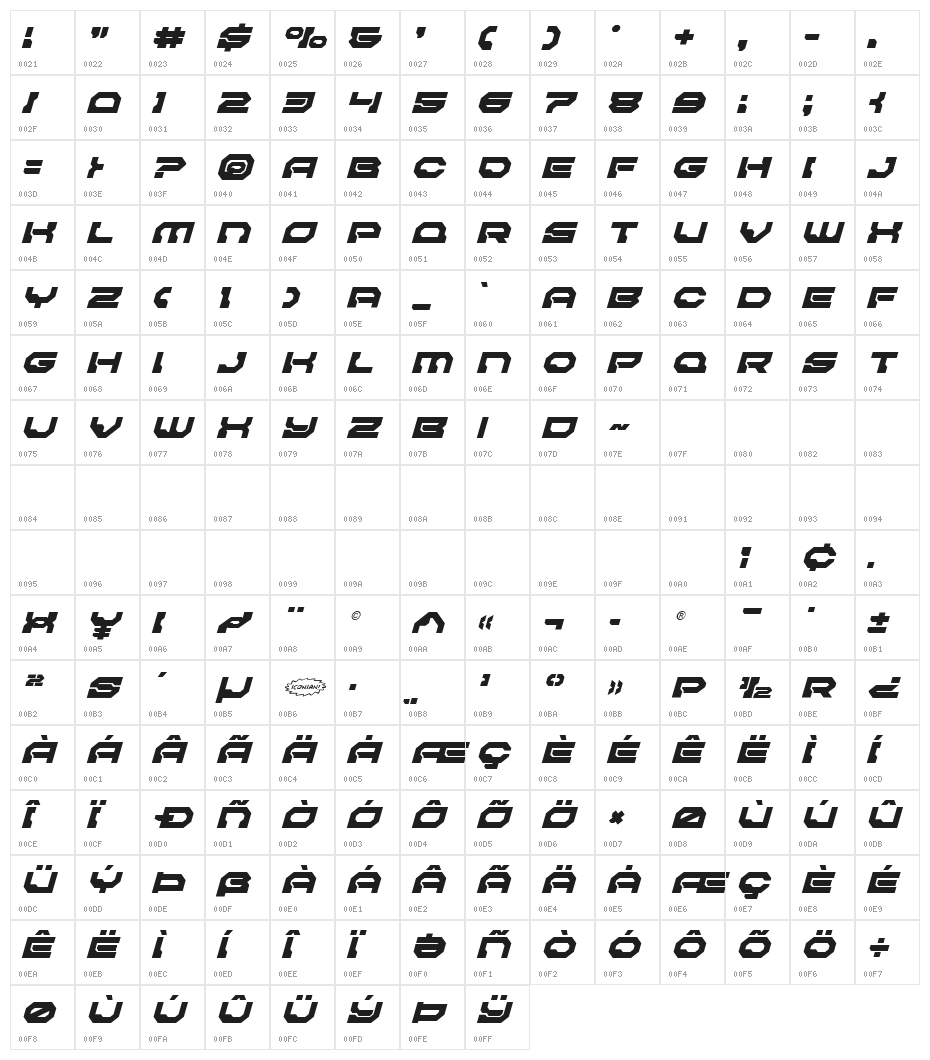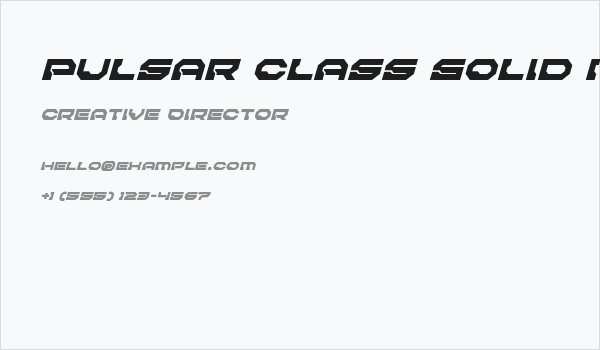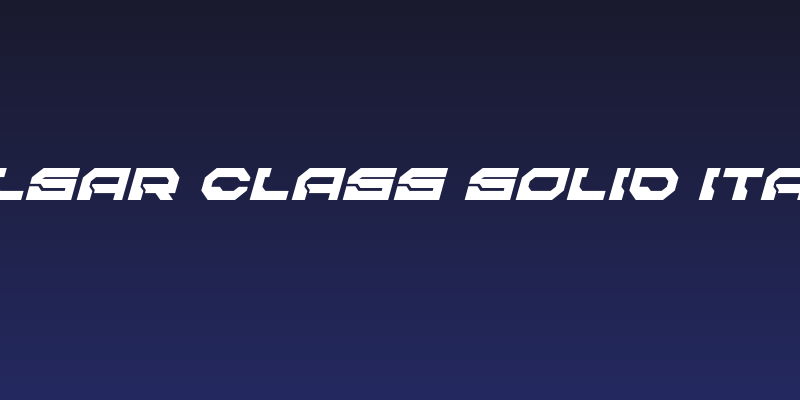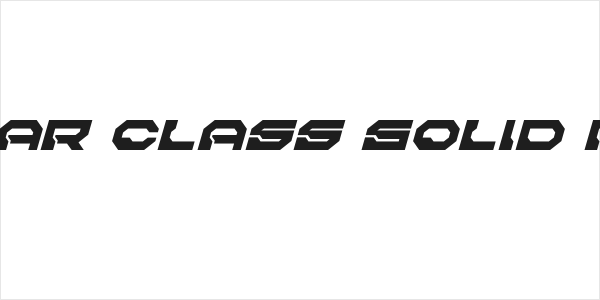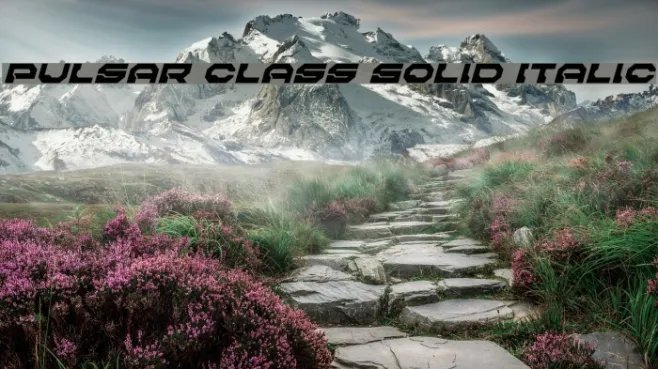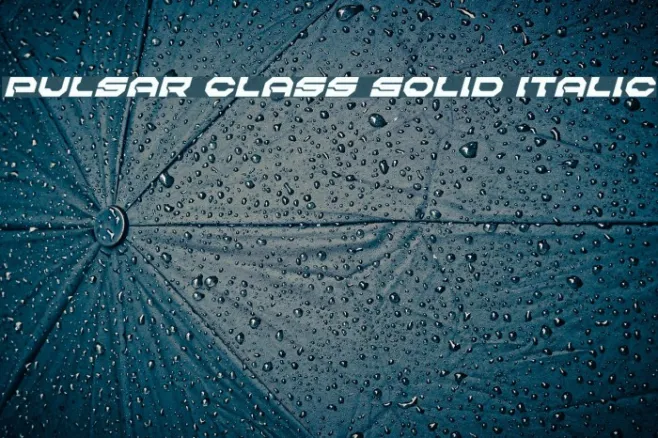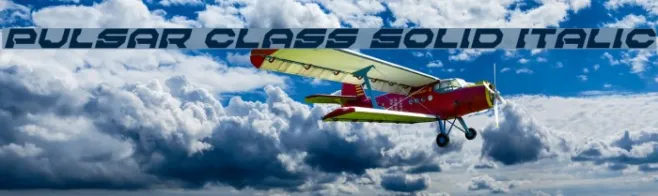
Pulsar Class Solid Italic Font
Pulsar Class Solid Italic Description
This font features a futuristic and angular design with a solid, bold appearance. The characters are italicized, giving a sense of motion and speed. Each letter is constructed with sharp edges and geometric shapes, creating a dynamic and modern aesthetic. The font maintains a consistent weight throughout, emphasizing its boldness. The spacing between characters is tight, enhancing the compact and cohesive look. This style is ideal for projects that require a strong, impactful visual presence.
| Proposed Projects | Ideal for sci-fi themed designs, video game titles, technology branding, and dynamic posters. |